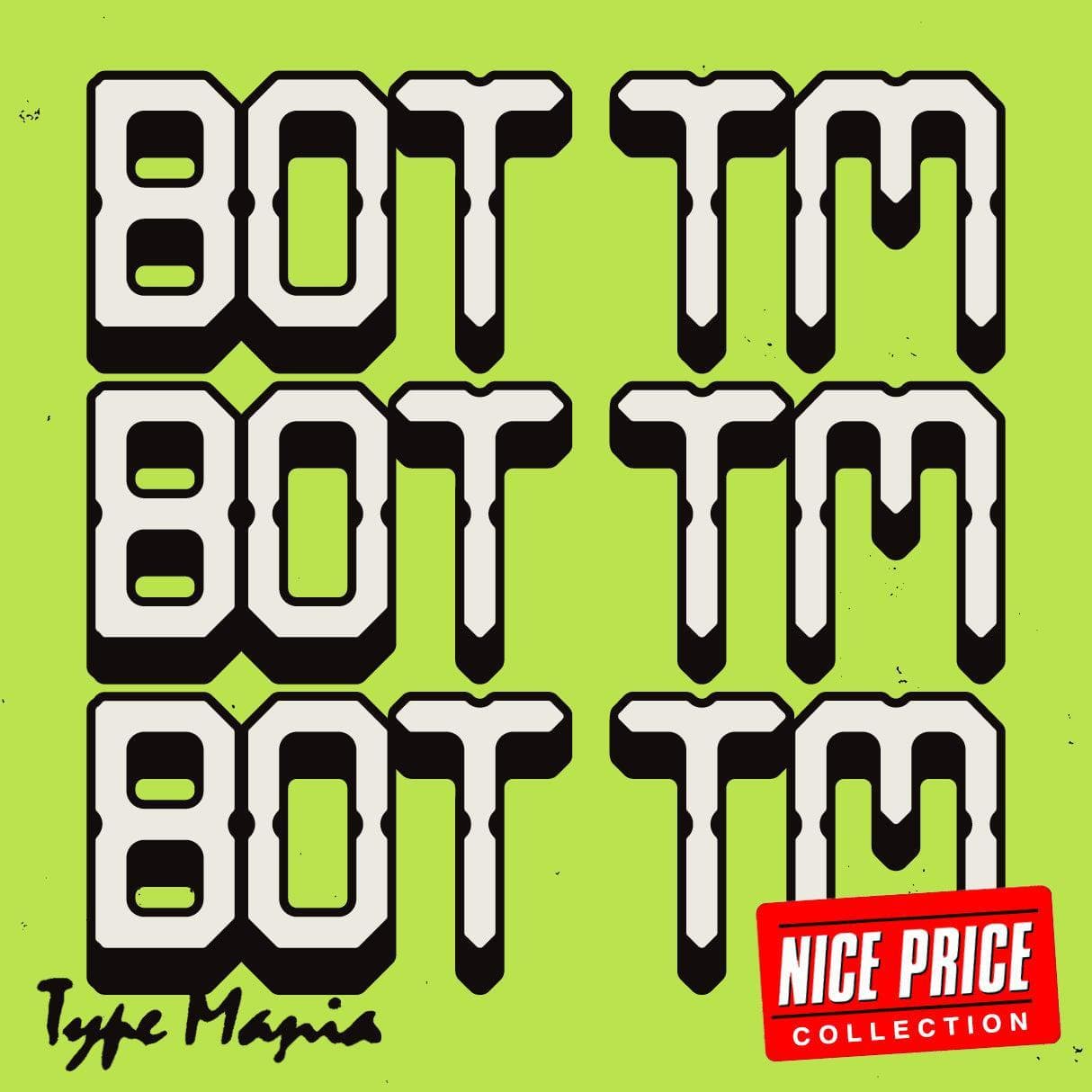
<p><strong>Bot TM</strong> pulls from the raw charm of early digital type. Rigid, modular, machine-made—it's perfect for your rave revivalist flyer, t-shirt, bootleg 12"... U get the idea 🔊🔊</p> <p><strong>Zip includes</strong></p> <ul> <li>OTF file</li> <li>TTF file</li> <li>WOFF2 file</li> </ul> <p><strong>Languages</strong></p> <ul> <li>Basic Latin</li> <li>Euro</li> </ul> <p><em>Graphic Design is Easy (with Type Mania)®</em></p>